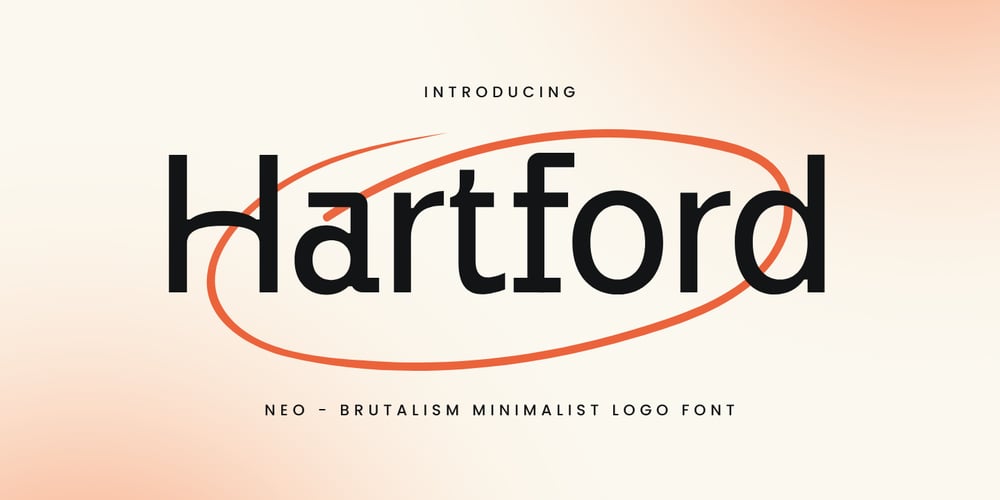
Hartford Font Family was designed by Zamroni Hamzah and published by Sensatype Studio. Hartford contains 2 styles and family package options. Introducing Hartford, a sleek and modern font crafted to elevate corporate identity and professional designs. With its clean lines and contemporary style, Hartford is perfect for creating branding materials that exude sophistication and elegance.The Story Behind Hartford:Hartford was inspired by the precision and creativity found in the world of corporate design. Picture a bustling office where every detail matters, and every presentation is polished to perfection. This font captures that essence, offering a blend of modern aesthetics and professional appeal. Hartford is ideal for designers looking to create refined and stylish corporate materials that leave a lasting impression.Hartford Font Features: Sleek Design: Modern and elegant, perfect for corporate and business use. Professional Aesthetics: Clean lines and refined curves that convey sophistication. Versatile Usage: Ideal for logos, business cards, corporate presentations, and branding materials. Multiple Formats: Available in 4 formats for all your design needs. High Legibility: Clear and sharp, ensuring your message is communicated effectively. Elegant Simplicity: Combines modern style with a professional look. Inspirational Previews: Includes sample designs to spark your creativity. Perfect For: Corporate Branding: Create sleek and memorable logos for businesses and companies. Business Materials: Design elegant business cards, letterheads, and office stationery. Presentations: Develop polished and modern presentations for corporate meetings and pitches. Marketing Materials: Enhance brochures, flyers, and advertisements with a touch of elegance. With Hartford, your corporate designs will achieve a new level of professionalism and style. Whether you’re working on branding, marketing materials, or business presentations, Hartford provides the perfect blend of modern design and corporate sophistication. Elevate your brand with Hartford and make a lasting impression in the business world.